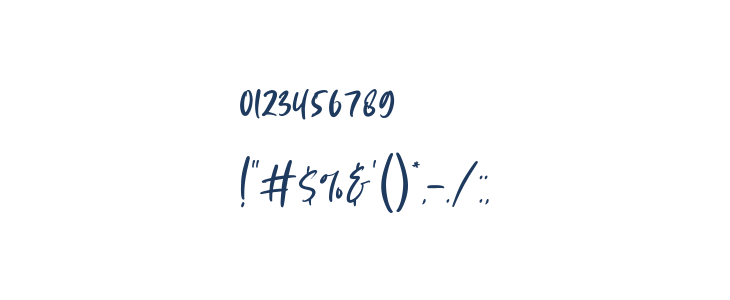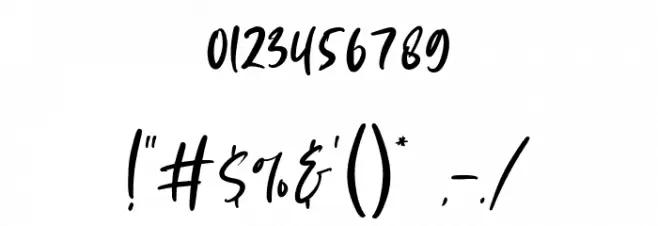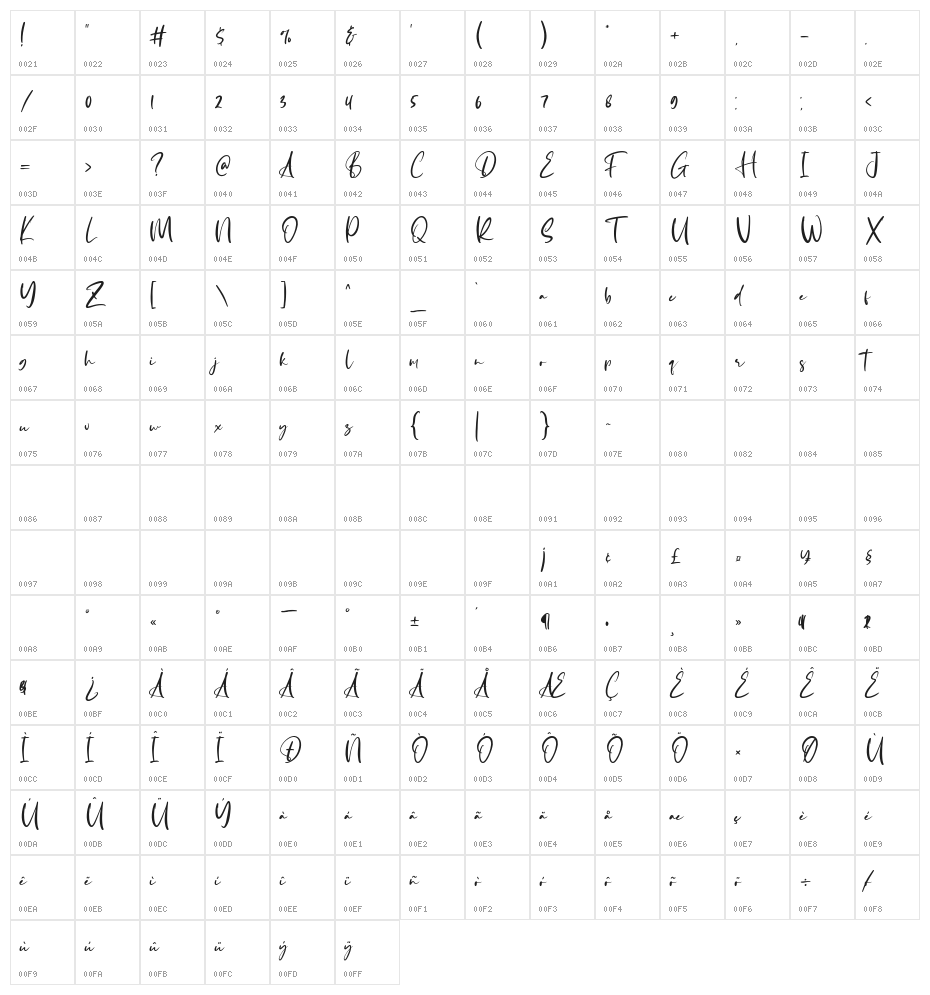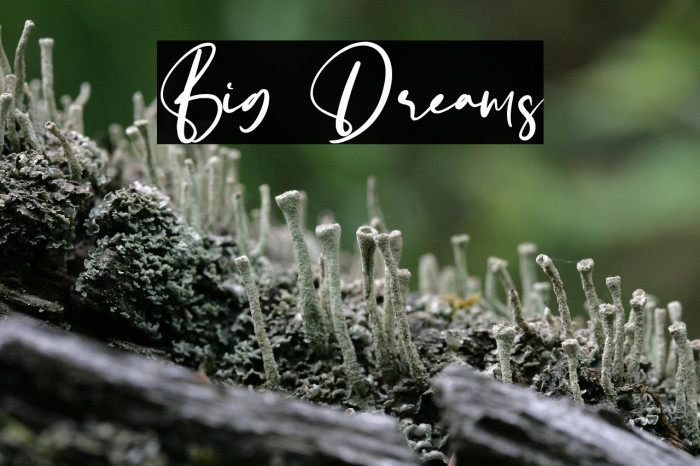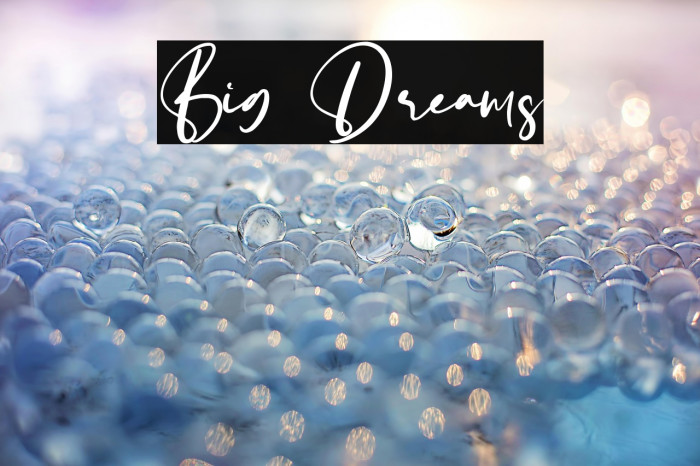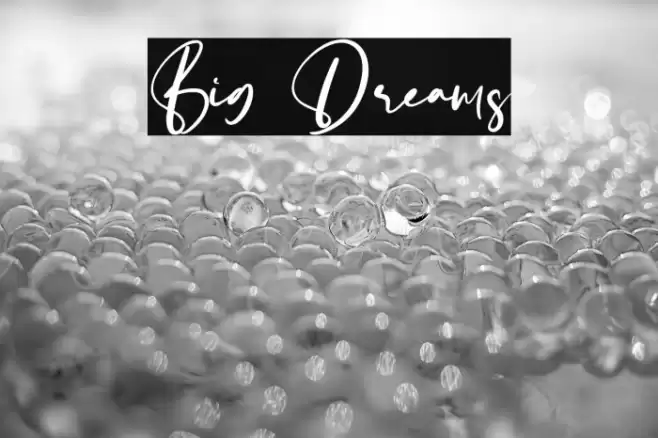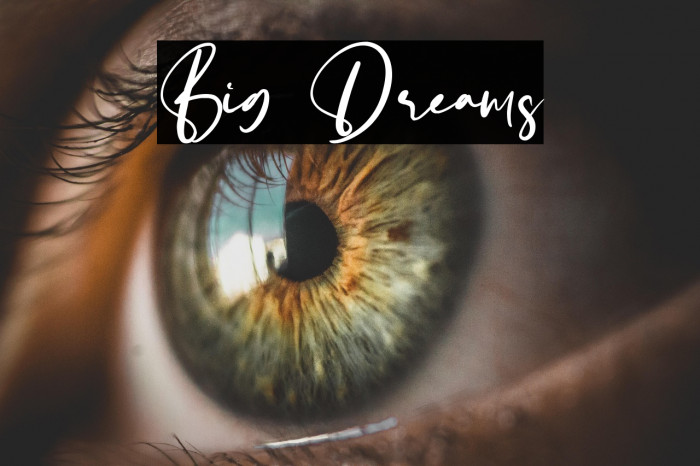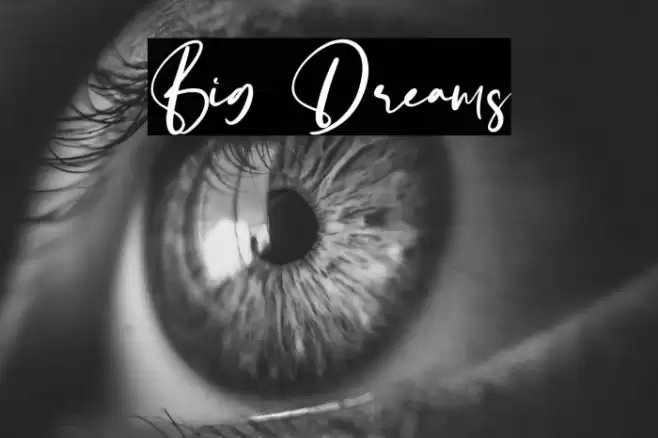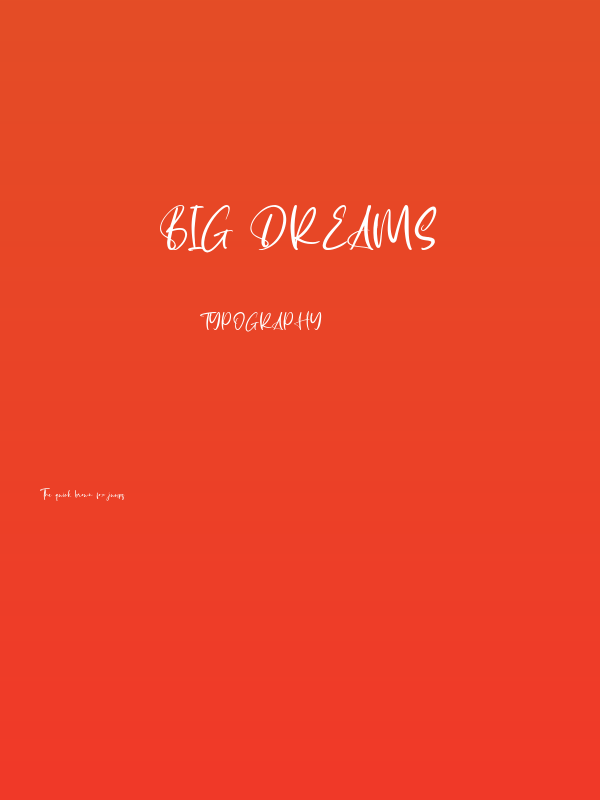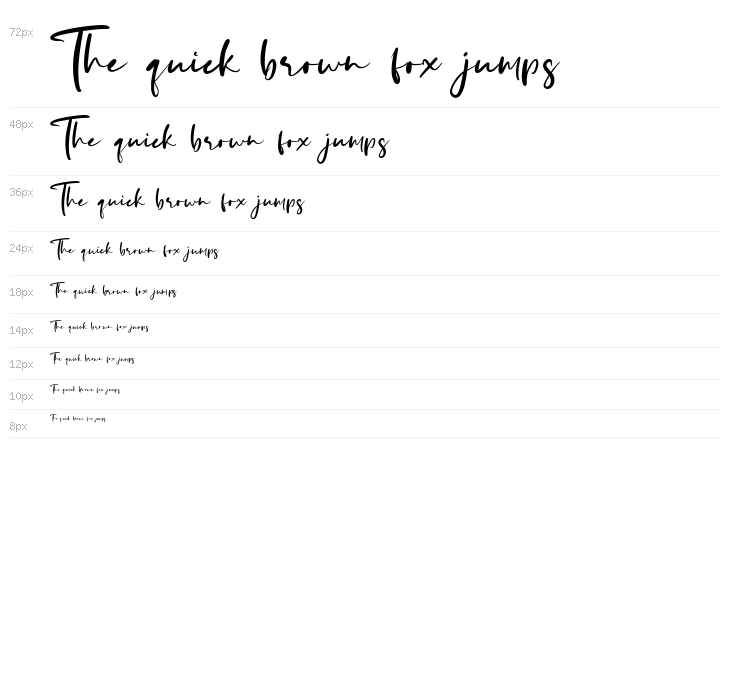
Big Dreams Font
This font features a lively and expressive handwritten style, characterized by its fluid and dynamic strokes. The uppercase letters are bold and slightly slanted, giving them a sense of movement and energy. The lowercase letters maintain a consistent flow, with some characters extending below the baseline, adding to the font's playful nature. The numerals are well-integrated, matching the overall style with their rounded and slightly exaggerated forms. Special characters are creatively designed, maintaining the font's unique aesthetic. This font's overall appearance is both modern and artistic, making it suitable for a variety of creative applications.